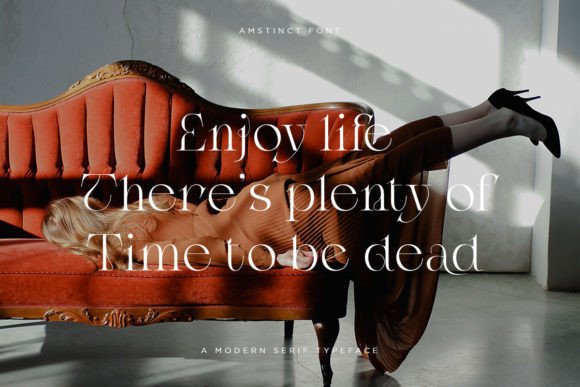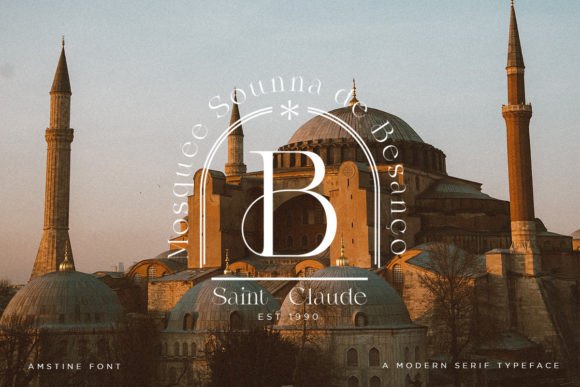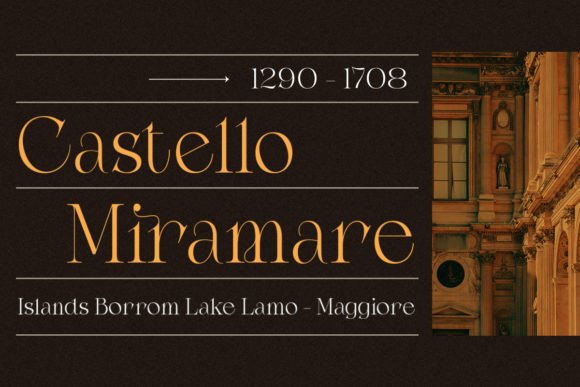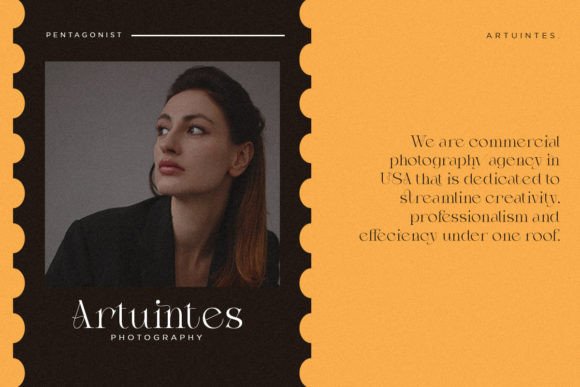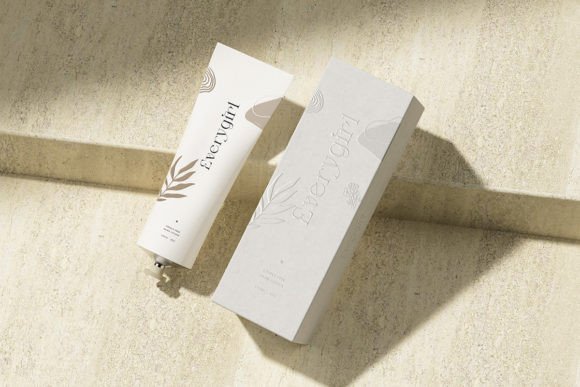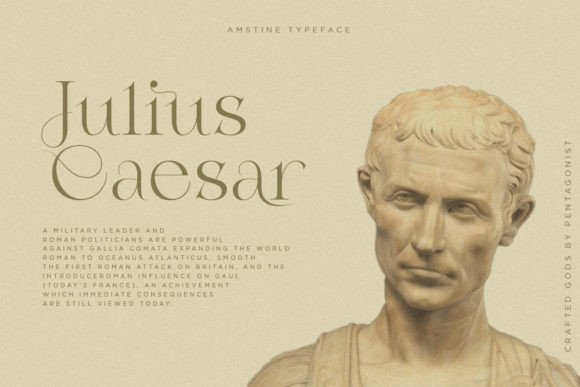
Introducing Amstine Font: Elevate Your Designs with Sophistication and Elegance
In the world of typography, a font can make or break a design. For designers and crafters seeking to add a touch of luxury and refinement to their work, the Amstine font is an exceptional choice. This sophisticated and graceful serif font is designed to exude class and elegance, making it perfect for high-end branding, editorial layouts, and luxury packaging.
The Characteristics of Amstine Font
Amstine’s slender and delicately curved serifs add an air of understated elegance to any design. The font’s precise letterforms and generous spacing create a sense of refinement and poise, making it ideal for designs that require a high level of sophistication. Whether you’re working on a luxury brand’s logo, an editorial layout, or a high-end product’s packaging, Amstine font is sure to impress.
What Sets Amstine Apart
So, what makes Amstine font stand out from the rest? Here are a few key features that set it apart:
- PUA Encoding: Amstine font is PUA (Private Use Area) encoded, which means you can access all of the amazing glyphs and ligatures with ease. This feature allows you to unlock the full potential of the font and take your designs to the next level.
- Precise Letterforms: The font’s precise letterforms are designed to provide a high level of legibility and readability, making it perfect for body text and headlines.
- Generous Spacing: Amstine’s generous spacing creates a sense of airiness and elegance, making it ideal for designs that require a high level of sophistication.
Perfect for High-End Designs
Amstine font is specifically designed for high-end designs that require a level of sophistication and elegance. Here are a few examples of how you can use Amstine font in your designs:
- Luxury Branding: Use Amstine font to create a luxurious and refined brand identity that exudes elegance and sophistication.
- Editorial Layouts: Amstine font is perfect for editorial layouts, such as magazines, newspapers, and books, where a high level of readability and legibility is required.
- Luxury Packaging: Add a touch of luxury and refinement to your product’s packaging with Amstine font, perfect for high-end products and premium brands.
Tips for Using Amstine Font
Here are a few tips for getting the most out of Amstine font:
- Use it sparingly: Amstine font is designed to make a statement, so use it sparingly to add emphasis and elegance to your designs.
- Experiment with font sizes: Amstine font is designed to be versatile, so experiment with different font sizes to create visual interest and hierarchy.
- Pair it with other fonts: Amstine font can be paired with other fonts to create a unique and interesting visual effect.
In conclusion, Amstine font is a sophisticated and elegant serif font that is perfect for designers and crafters seeking to add a touch of luxury and refinement to their work. With its precise letterforms, generous spacing, and PUA encoding, Amstine font is an exceptional choice for high-end branding, editorial layouts, and luxury packaging. Whether you’re a seasoned designer or just starting out, Amstine font is sure to elevate your designs to the next level.